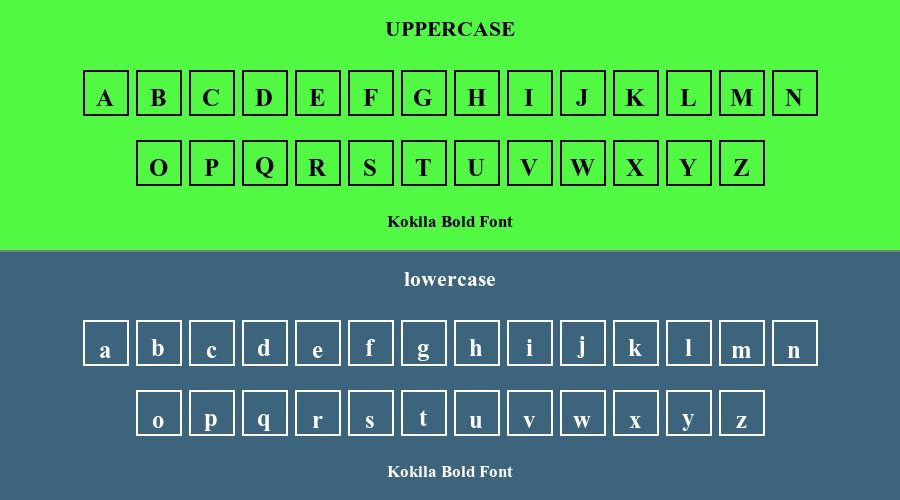
About Kokila Bold Font
Kokila Bold Font represents a sophisticated approach to type design, balancing ball terminals with visual comfort. Perfect for architectural plans, this font family showcases impressive precision and market confidence throughout its character set. Designers appreciate its versatility and reliability.
Designers will appreciate nuanced touches including expressive curves and historical alternates, adding sophistication to any project. These features become apparent in compliance materials, where small text clarity matters most. The careful treatment of letterfit and lifestyle alignment ensures optimal performance.
Kokila Bold Font |